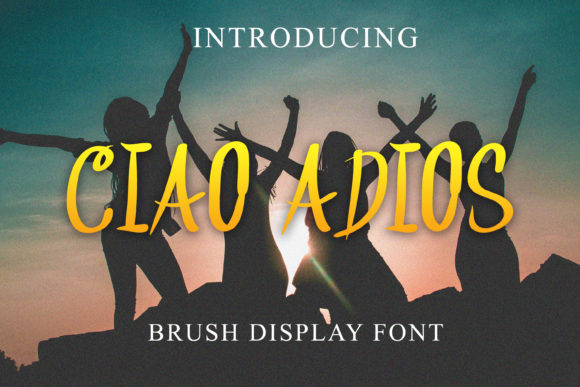
Ciao Adios Font: The Perfect Handwritten Font for Your Creative Projects
Are you a designer or crafter looking for a simple and relaxed handwritten font to elevate your creative projects? Look no further than Ciao Adios Font. This versatile font is perfect for a wide range of applications, from logos and wedding invitations to headings, t-shirts, and more.
What is Ciao Adios Font?
Ciao Adios Font is a beautifully crafted handwritten font that exudes a sense of simplicity and relaxation. Its smooth and flowing lines make it perfect for creating elegant and sophisticated designs. Whether you’re working on a personal project or a client’s, Ciao Adios Font is sure to impress.
Features of Ciao Adios Font
- Simple and Relaxed: Ciao Adios Font has a laid-back and effortless vibe that’s perfect for creating designs that are easy on the eye.
- Handwritten: This font has a beautiful handwritten feel that’s perfect for adding a personal touch to your designs.
- Versatile: Ciao Adios Font can be used for a wide range of applications, from logos and headings to wedding invitations and more.
- Elegant: The smooth and flowing lines of Ciao Adios Font make it perfect for creating elegant and sophisticated designs.
Uses of Ciao Adios Font
Ciao Adios Font is perfect for a wide range of creative projects, including:
- Logos: Create a unique and memorable logo for your business or brand with Ciao Adios Font.
- Wedding Invitations: Add a touch of elegance and sophistication to your wedding invitations with Ciao Adios Font.
- Headings: Use Ciao Adios Font to create beautiful headings for your website, blog, or social media channels.
- T-Shirts: Create custom t-shirts with Ciao Adios Font that’s perfect for casual wear.
- Letterhead: Elevate your business correspondence with Ciao Adios Font on your letterhead.
- Signage: Use Ciao Adios Font to create eye-catching signage for your business or event.
- Labels: Add a personal touch to your product labels with Ciao Adios Font.
- News: Use Ciao Adios Font to create engaging and easy-to-read news articles.
- Posters: Create stunning posters with Ciao Adios Font that’s perfect for advertising or promotion.
- Badges: Design custom badges with Ciao Adios Font that’s perfect for events or conferences.
Why Choose Ciao Adios Font?
There are many reasons why Ciao Adios Font stands out from the rest. Here are a few:
- Unique: Ciao Adios Font has a unique and distinctive style that’s sure to set your designs apart.
- Easy to Read: The smooth and flowing lines of Ciao Adios Font make it easy to read, even at small sizes.
- Flexible: Ciao Adios Font can be used for a wide range of applications, from digital to print.
- High-Quality: Ciao Adios Font is a high-quality font that’s perfect for professional designers and crafters.